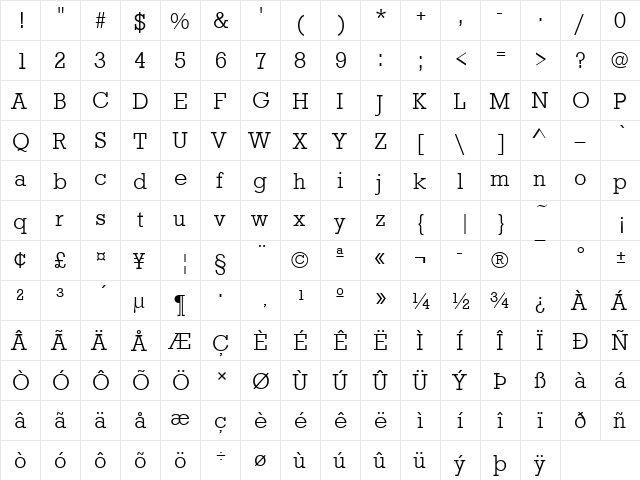
URWRogulusTLig Regular
Design Context for URWRogulusTLig Typeface
URWRogulusTLig is a composed and adaptable typeface that performs quietly and consistently across a wide range of design contexts.